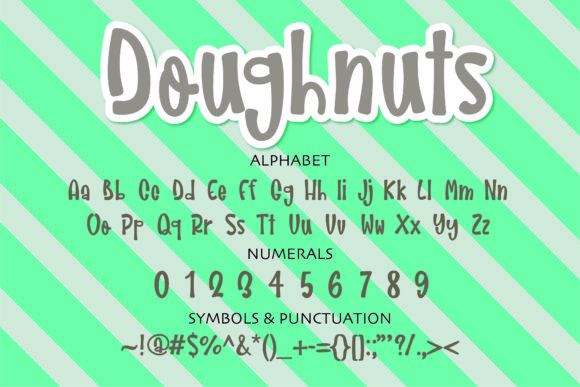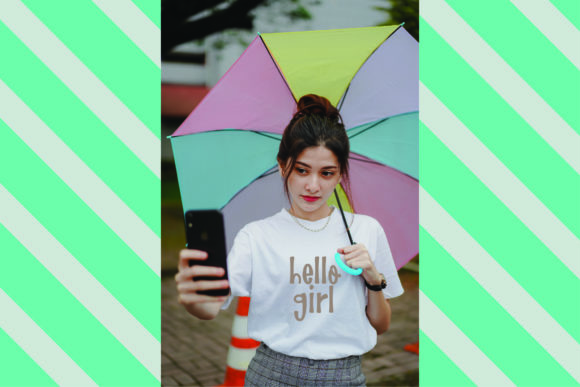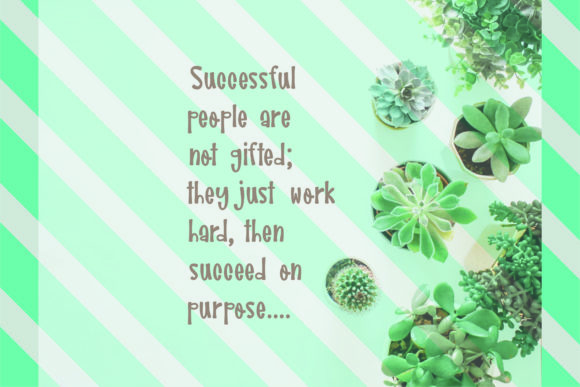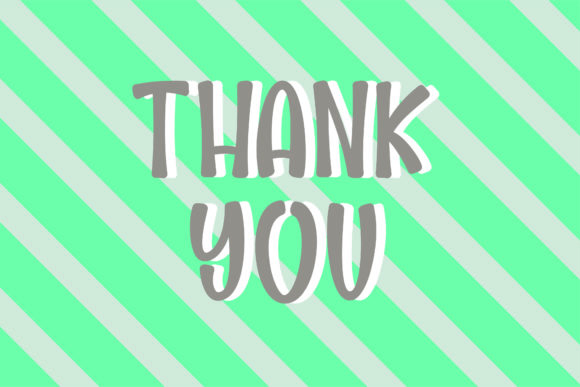
Doughnuts Font: The Sweetest Addition to Your Design Collection
Are you on the hunt for a font that’s as sweet as it is versatile? Look no further than the Doughnuts Font! This adorable, handwritten font is perfect for designers and crafters looking to add a touch of whimsy and personality to their projects. In this article, we’ll dive into the world of Doughnuts Font, exploring its unique features, uses, and why it’s a must-have for any creative looking to elevate their designs.
What is Doughnuts Font?
Doughnuts Font is a cute and flexible handwritten font that’s designed to bring a smile to your face. Its natural and unique style makes it incredibly fitting for a wide range of designs, from sweet treats and baked goods to playful crafts and DIY projects. With its effortless, hand-written feel, Doughnuts Font is the perfect choice for designers and crafters looking to add a personal touch to their work.
Key Features of Doughnuts Font
- Cute and Playful: Doughnuts Font is designed to be adorable and fun, making it perfect for projects that require a touch of whimsy.
- Flexible: This font is incredibly versatile, and can be used for a wide range of designs, from digital projects to print materials.
- Handwritten: With its natural, hand-written feel, Doughnuts Font adds a personal touch to any project.
- Unique: This font’s unique style sets it apart from other handwritten fonts, making it a standout choice for designers and crafters.
Uses for Doughnuts Font
So, what can you use Doughnuts Font for? The possibilities are endless! Here are just a few ideas to get you started:
- Baking and Desserts: Use Doughnuts Font to create adorable labels, signs, and packaging for your baked goods.
- Crafts and DIY: Add a personal touch to your craft projects, such as knitting patterns, sewing tutorials, and handmade cards.
- Digital Design: Use Doughnuts Font in your digital designs, such as social media graphics, blog posts, and website headers.
- Print Materials: Add a touch of whimsy to your print materials, such as brochures, flyers, and business cards.
Tips for Using Doughnuts Font
Why Designers and Crafters Love Doughnuts Font
So, why do designers and crafters love Doughnuts Font? Here are just a few reasons:
- Easy to Read: Despite its playful style, Doughnuts Font is incredibly easy to read, making it perfect for body text and headlines.
- Versatile: This font is incredibly versatile, making it suitable for a wide range of designs and projects.
- Unique: Doughnuts Font’s unique style sets it apart from other fonts, making it a great choice for designers and crafters looking to stand out.
| Font Name | Doughnuts Font |
| Author | GoodMoodType |
In conclusion, Doughnuts Font is a sweet and versatile addition to any design collection. With its cute and playful style, flexible design, and endless uses, it’s the perfect choice for designers and crafters looking to add a touch of whimsy to their projects. Whether you’re working on a digital design, print materials, or crafts and DIY projects, Doughnuts Font is sure to bring a smile to your face and a touch of personality to your work. So why wait? Download Doughnuts Font today and start exploring its endless variations!